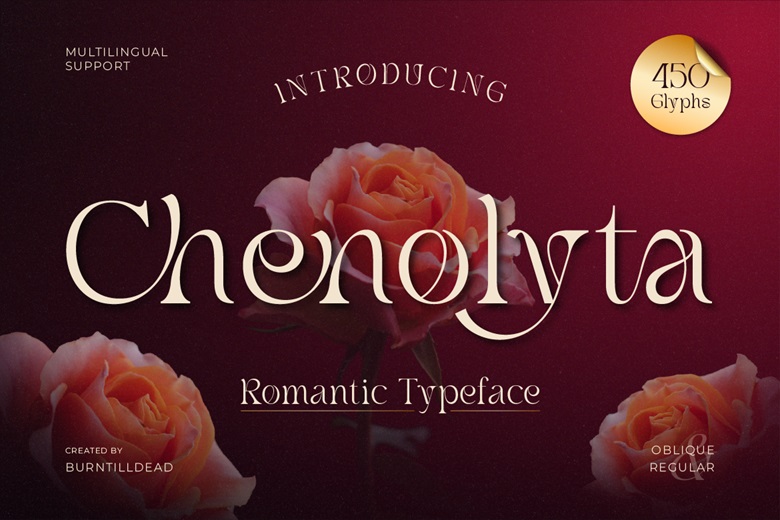
Chenolyta Font
Chenolyta is a romantic and elegant serif typeface which articulates the language of love in each curve and blossom. The Chenolyta is designed with stunning balanced flow of modern serifs and artistic touch that suits the most ancient of designs on Valentines, branding of perfumes, wedding invitations, and high-end packaging. This font has 450+ glyphs, oblique and regular types, and sophisticated ligatures to create an unlimited number of ways to convey the passion and sophistication.
No matter how poetic you make your headline or how dreamy your logo is, Chenolyta can get all the words to flower in their full promiscuity like roses. Make your design speak of grace, seduction, and tenderness – the Chenolyta manner.
Chenolyta Serif Font